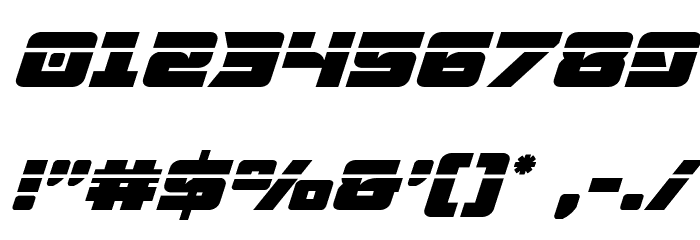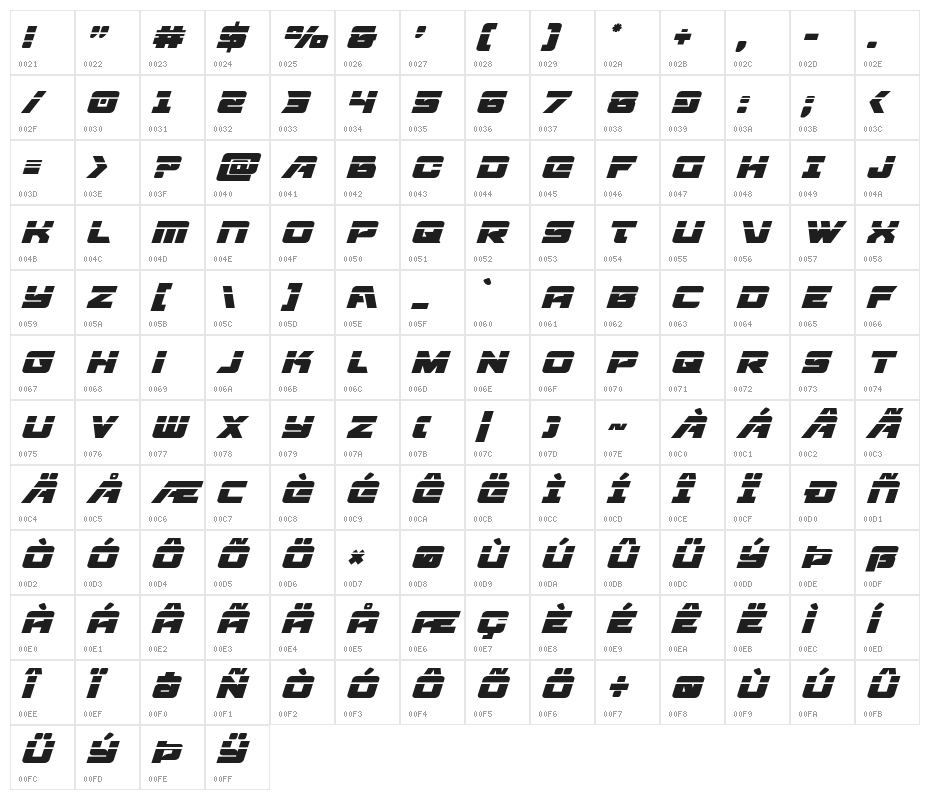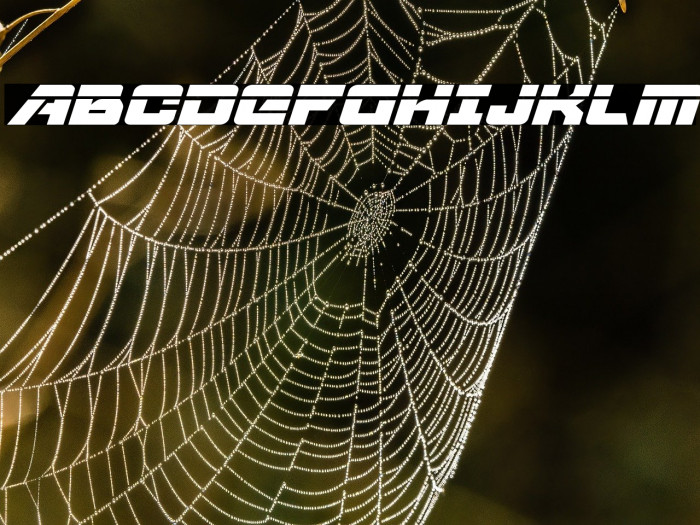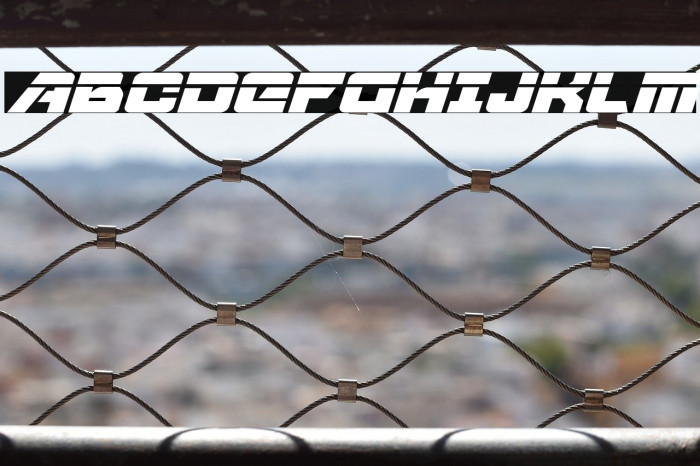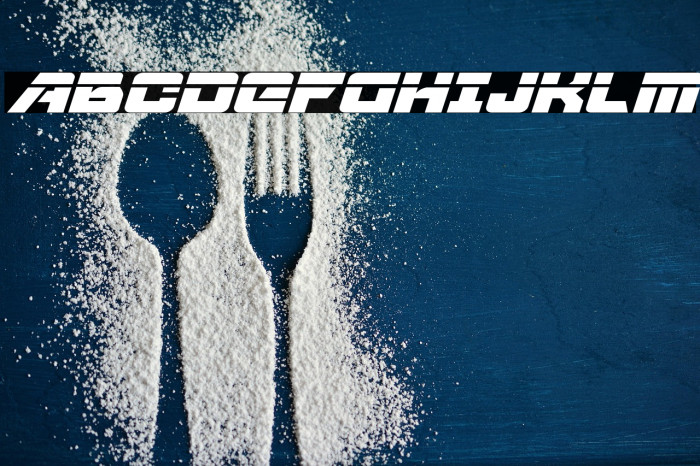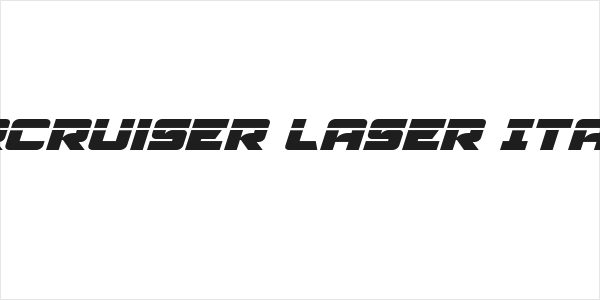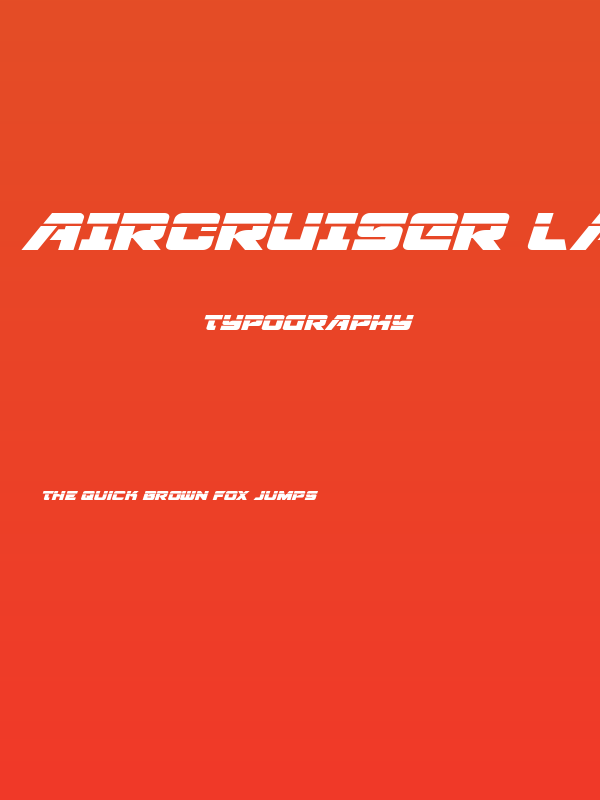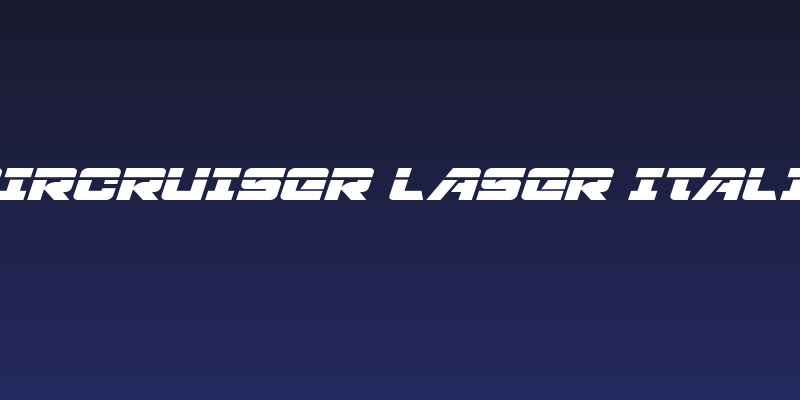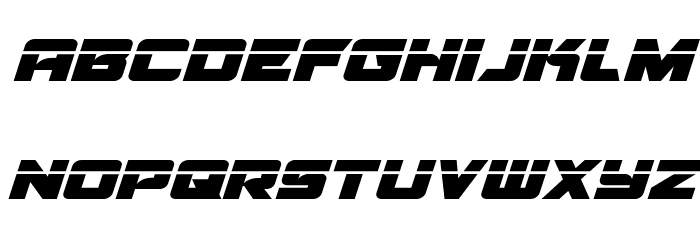
Aircruiser Laser Italic Font
Aircruiser Laser Italic Description
This font features a bold, futuristic design with sharp angles and a distinct italic slant, giving it a dynamic and energetic appearance. The characters are wide and have a strong presence, making them ideal for attention-grabbing headlines. The geometric shapes and clean lines contribute to a modern aesthetic, while the italic style adds a sense of motion and speed. The font includes a full set of uppercase and lowercase letters, numerals, and a variety of special characters, ensuring versatility in design applications.
| Proposed Projects | Ideal for sci-fi themed projects, video game titles, technology branding, and sports team logos. |